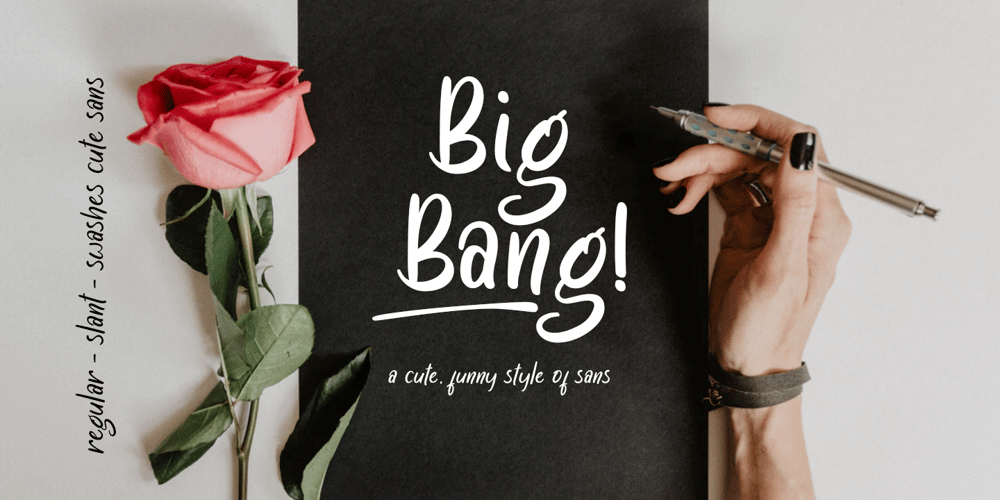
Big Bang
Big Bang font
Big Bang Font Family was designed by Sarwo Edhi Prayitno and published by Haksen. Big Bang contains 3 styles and family package options. Big Bang! Cute Sans with Additional SwashesIntroducing the elegant “Big Bang!” Cute Sans with Additional Swashes If you are needing a touch of funnies chic cute sans for your designs, this font was created for you!Big Bang was built with OpenType features cute characters for uppercase and lowercase letters, loads of different swash character for numerical, uppercase and lowercase letters in file with the name Big Bang Swashes, in other side for Bing Bang regular and slant version include numbers, punctuation, ligatures and it also supports other languages :)Accessing the swashes / opentype features / glyphs:This font works best in a program that supports OpenType features such as Adobe Indesign, Adobe Illustrator CS, or Adobe Photoshop CC. You can access the swashes and alternates from the ‘Glyphs Panel’ in these programs.More Questions? Here are some (potential) answers! You are not permitted to resell this font in any way. Multilingual Support is included for Western European Languages Cheers!